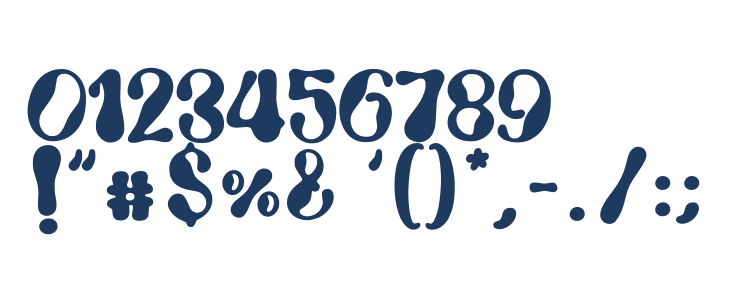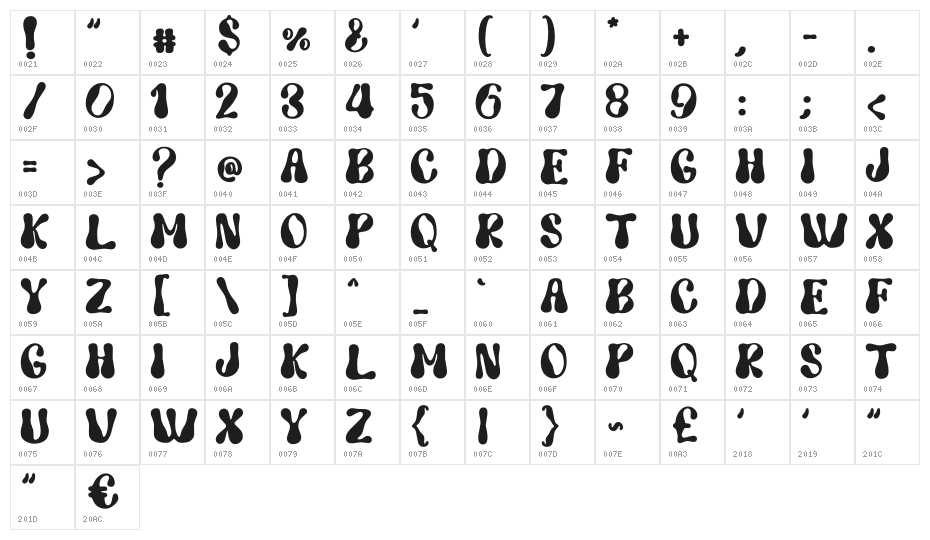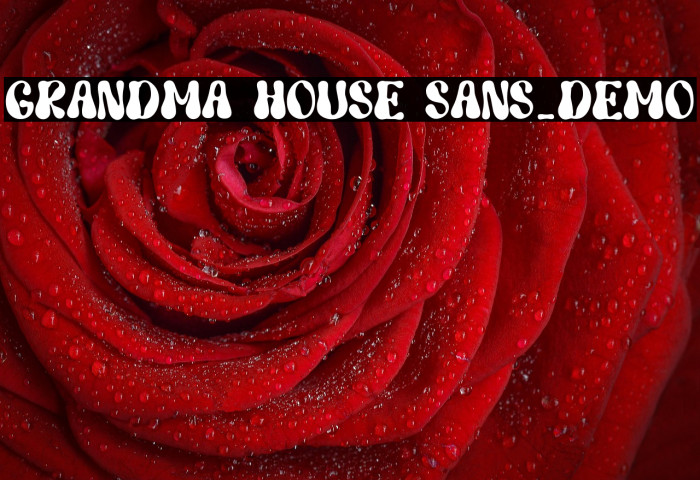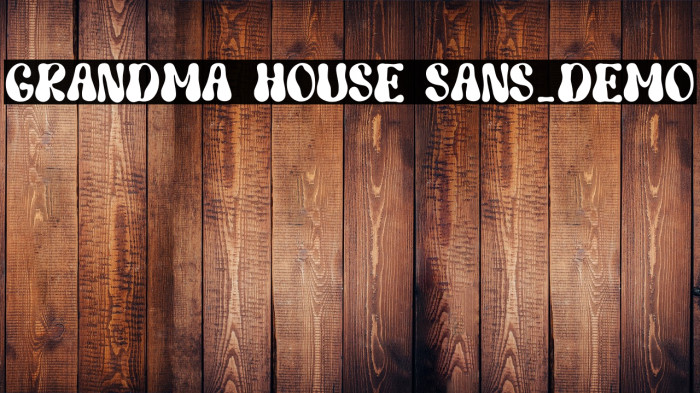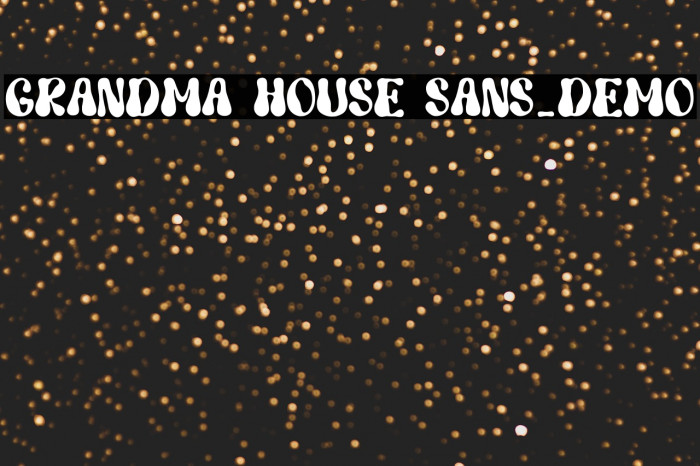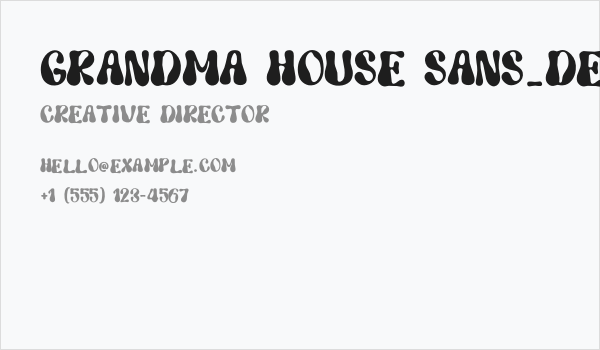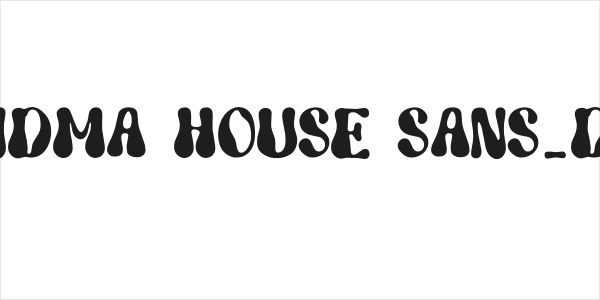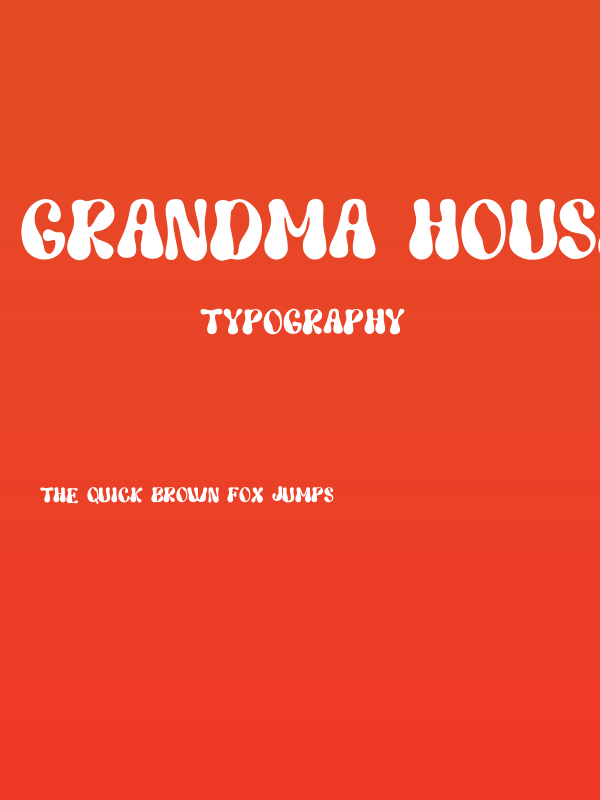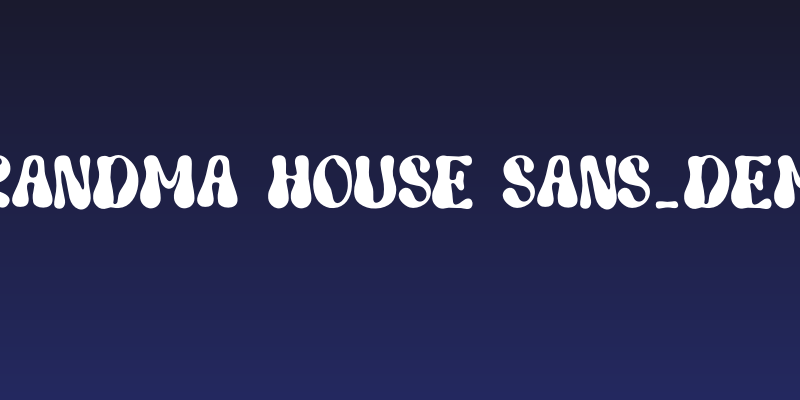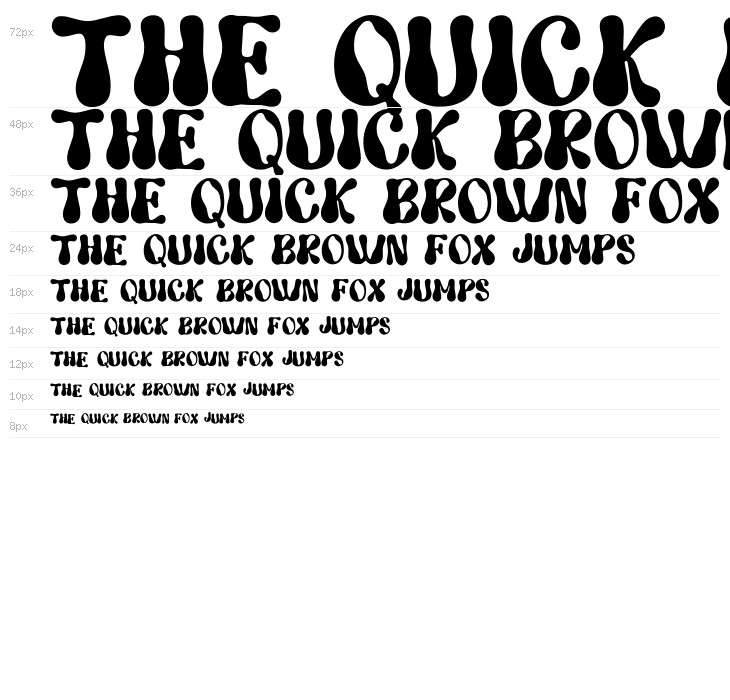
Grandma House Sans_DEMO Font
Grandma House Sans_DEMO Description
This font features a bold and playful design with thick, rounded strokes that give it a bubbly and whimsical appearance. The characters are highly stylized, with exaggerated curves and a sense of movement that adds a dynamic feel. The font's unique style makes it stand out, with each letterform having a distinct personality. The numbers and special characters follow the same playful theme, ensuring consistency across all glyphs. This font is perfect for projects that require a fun and engaging visual impact.